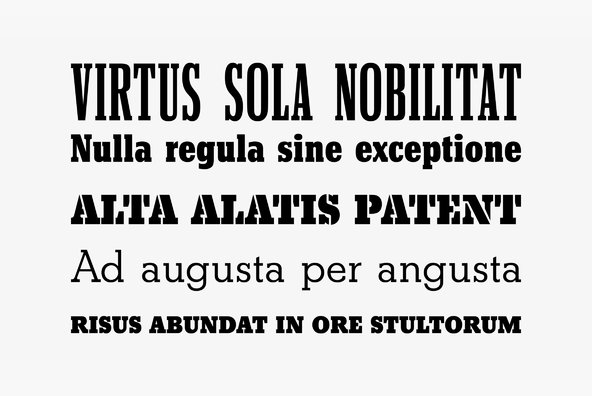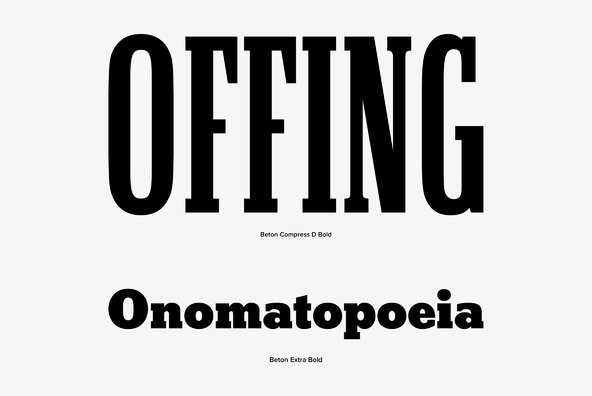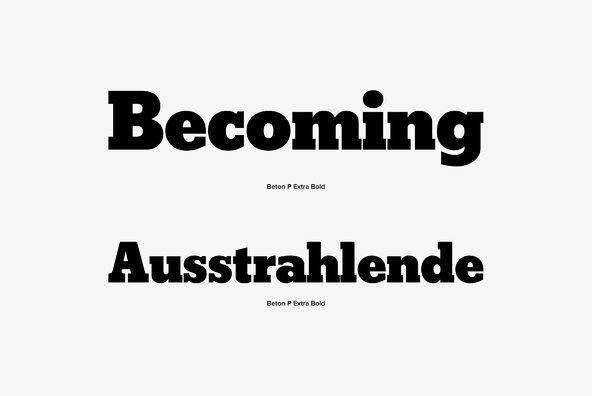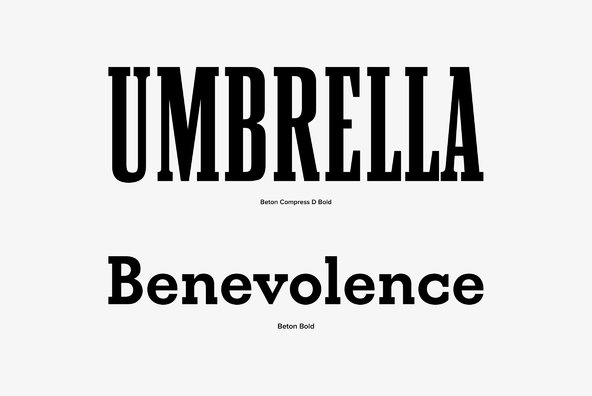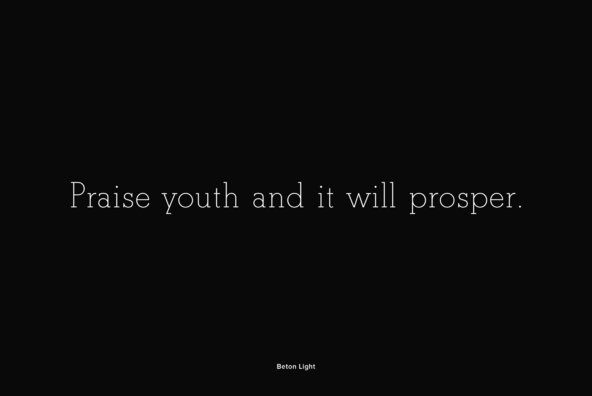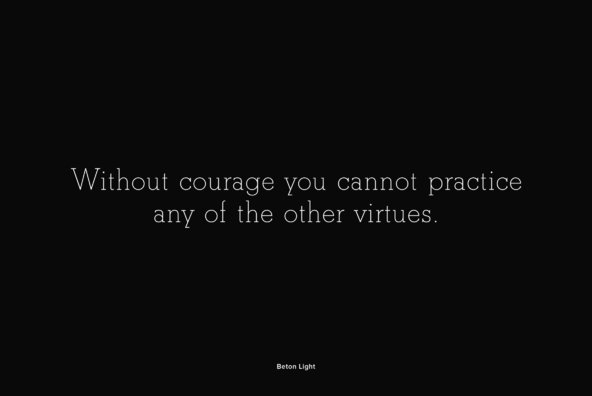
Originally designed by Heinrich Jost in 1931, Beton is a clean and interesting slab serif type design. Beton contains language support for West, East, Turkish, Baltic, and Romanian.
Originally designed by Heinrich Jost in 1931, Beton is a clean and interesting slab serif type design. Beton contains language support for West, East, Turkish, Baltic, and Romanian. Beton is a trademark by Bauer Types SA.